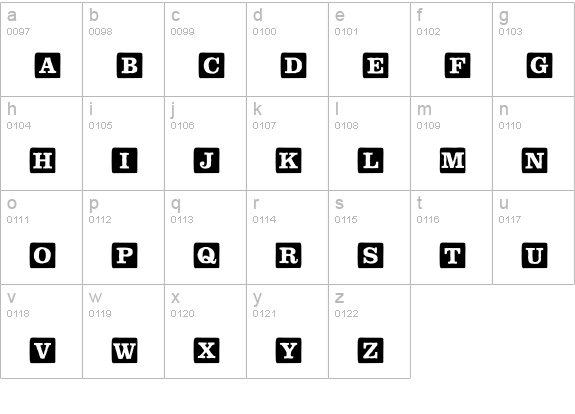
ChildsPlayBlocksSolid Font Details
ChildsPlayBlocksSolid font is a charming and playful typeface designed to bring a sense of fun and creativity to your projects. With its solid block letters and childlike aesthetic, this font is perfect for adding a whimsical touch to children's books, posters, invitations, and more. Best of all, ChildsPlayBlocksSolid font is completely free to download at FontsMarket.com. Whether you're a professional designer looking to add a touch of whimsy to your work or a parent creating homemade cards for your child's birthday party, this font is sure to delight and inspire. Get your hands on ChildsPlayBlocksSolid today and let your imagination run wild!